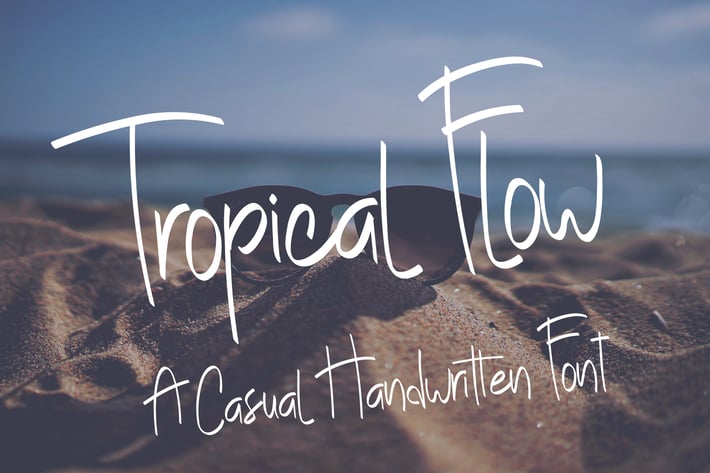
Tropical Flow - Casual Handwritten Font
This Extremely fun font perfect for your casual project, Fit for both print or web needs.
Also great for Logos, Invitation, Business Card and many more!
Basic Ligatures aa, ee, dd, ff, oo, tt, ss
Handwritten font